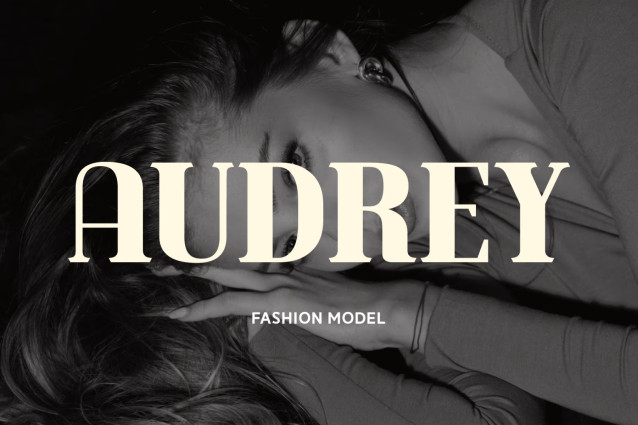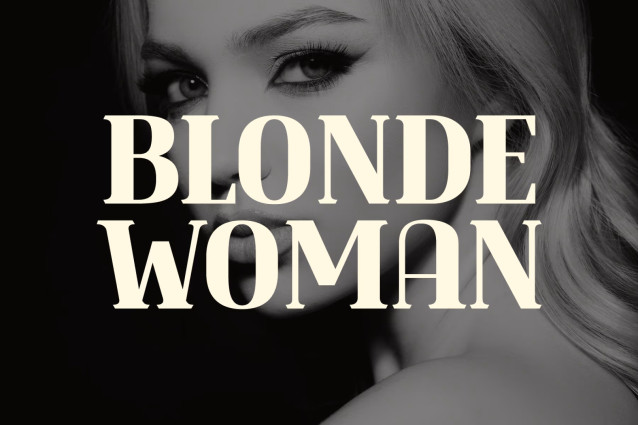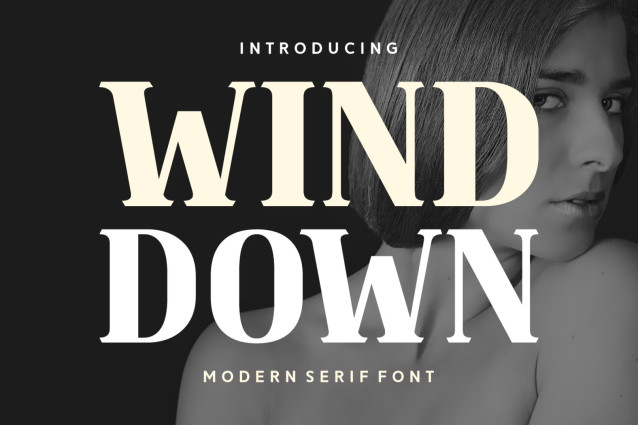
Wind Down Font
“Wind Down” hails from the majestic craft of Serif Fonts, setting a marker in the world of Elegant Fonts and Modern Fonts too. It gracefully contributes to the realm of Photography Fonts, and exhibits its showmanship as Accent Fonts and Apparel Fonts. The authenticity it radiates marks a unique niche in Authentic Fonts, enhancing the aesthetic appeal of Book Covers and becoming a favourite among Book Fonts. With its undeniable mastery in Branding Fonts space, you cannot overlook its charisma as Card Fonts and Clean Fonts.
“Wind Down” covers you when it comes to Cover Fonts and offers a heartwarming welcome as Greeting Card Fonts. It makes an iconic presentation in Logotype Fonts, and speaks volumes in the landscape of Magazine Fonts and Packaging Fonts. It finds a charming place under Quote Fonts and glides with smooth transitions earning respect as Smooth Fonts. It styles up as T-shirt fonts, stepping into the waves of Trendy Fonts. Above all, “Wind Down” goes beyond boundaries, offering Lovely Fonts with Multilingual Support. Redefine your font library with the exceptional artistry of “Wind Down”.